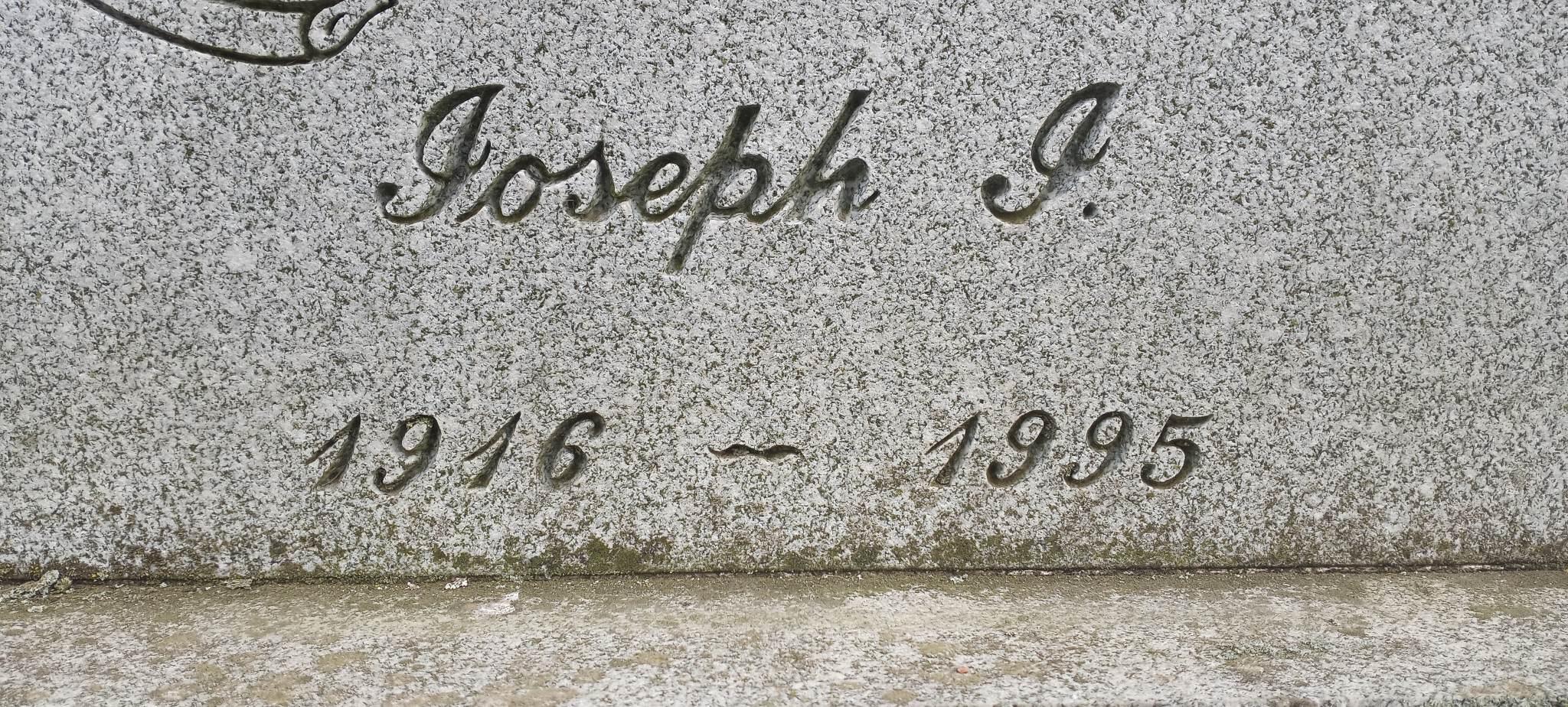
script Style
This may be Monu-Cad’s “Script Sandblast”, which is based on the font Commercial Script–but has been made bolder for better sandblasting at small sizes. However, it does appear to have at least been manipulated by hand, and the capital letter ‘I’ was used in place of the ‘J’. If you look at the two ‘J’s you can see they are quite different. The letter ‘p’ also seems to have been changed.